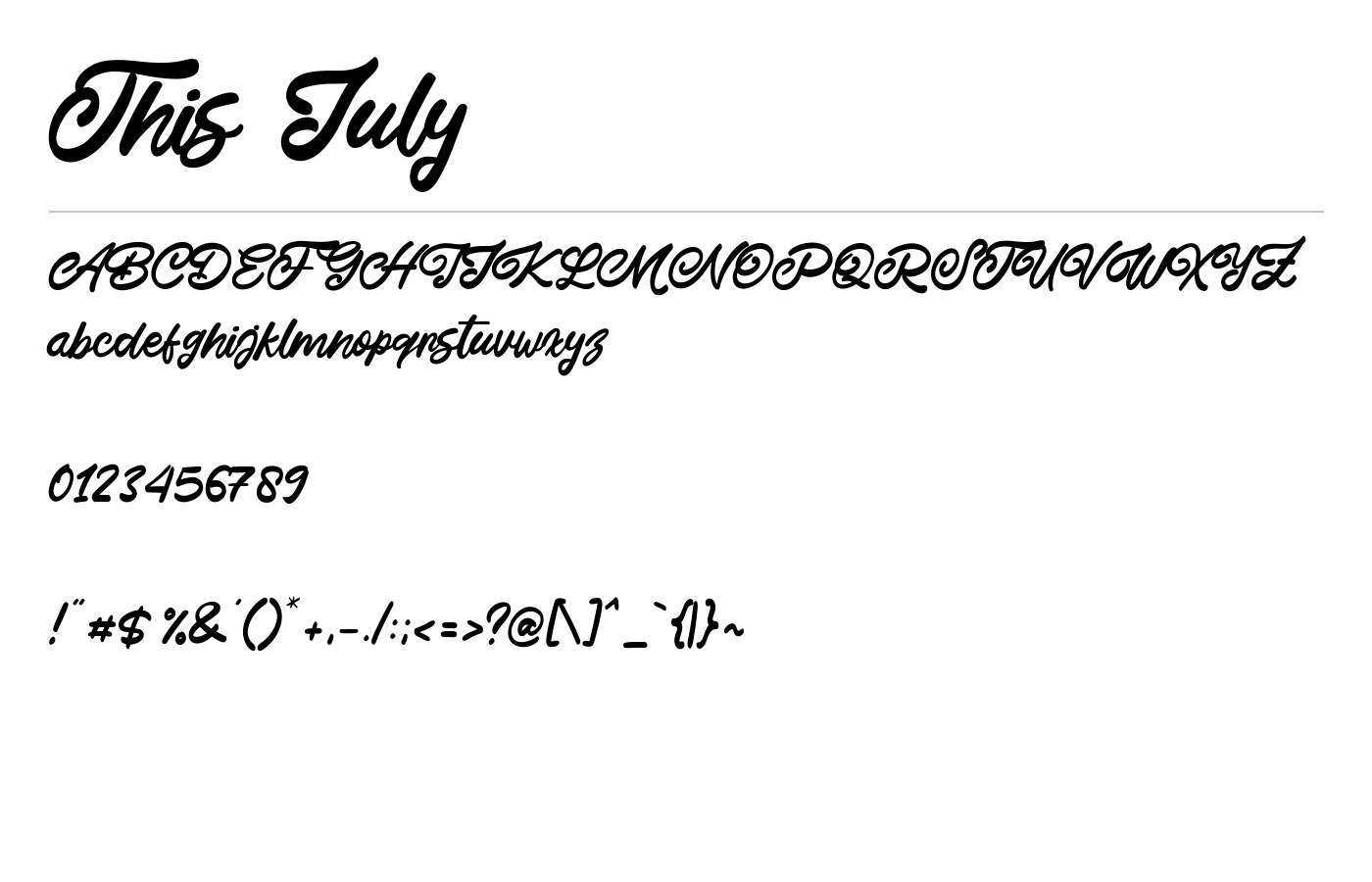
This July Script is a lively and elegant handwritten script font featuring bold, smooth strokes with a balanced medium contrast that adds charm and personality. Its flowing, connected letterforms and dynamic curves create a playful yet polished look, perfect for branding, invitations, and stylish headlines where a warm, approachable yet refined feel is desired. This font works best in creative and casual settings, bringing a personal touch without sacrificing readability.
This July Script Font
About This July Script Font
| Font family | This July Script Font |